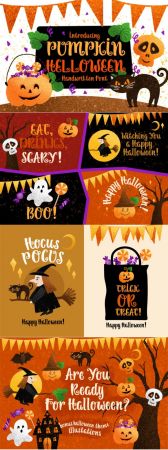
Pumpkin Halloween is the one-and-only handwritten font for any Halloween crafting ideas. It’s spooky, scary and weird, and will turn any design project into a true standout!